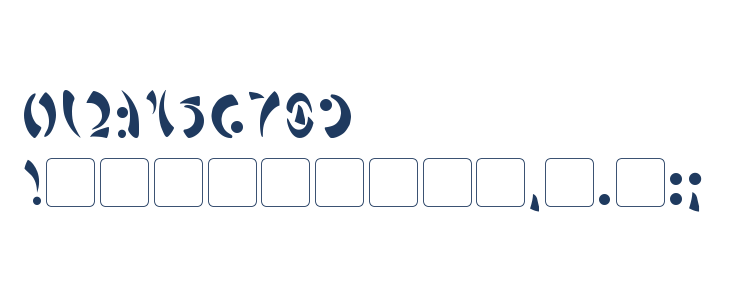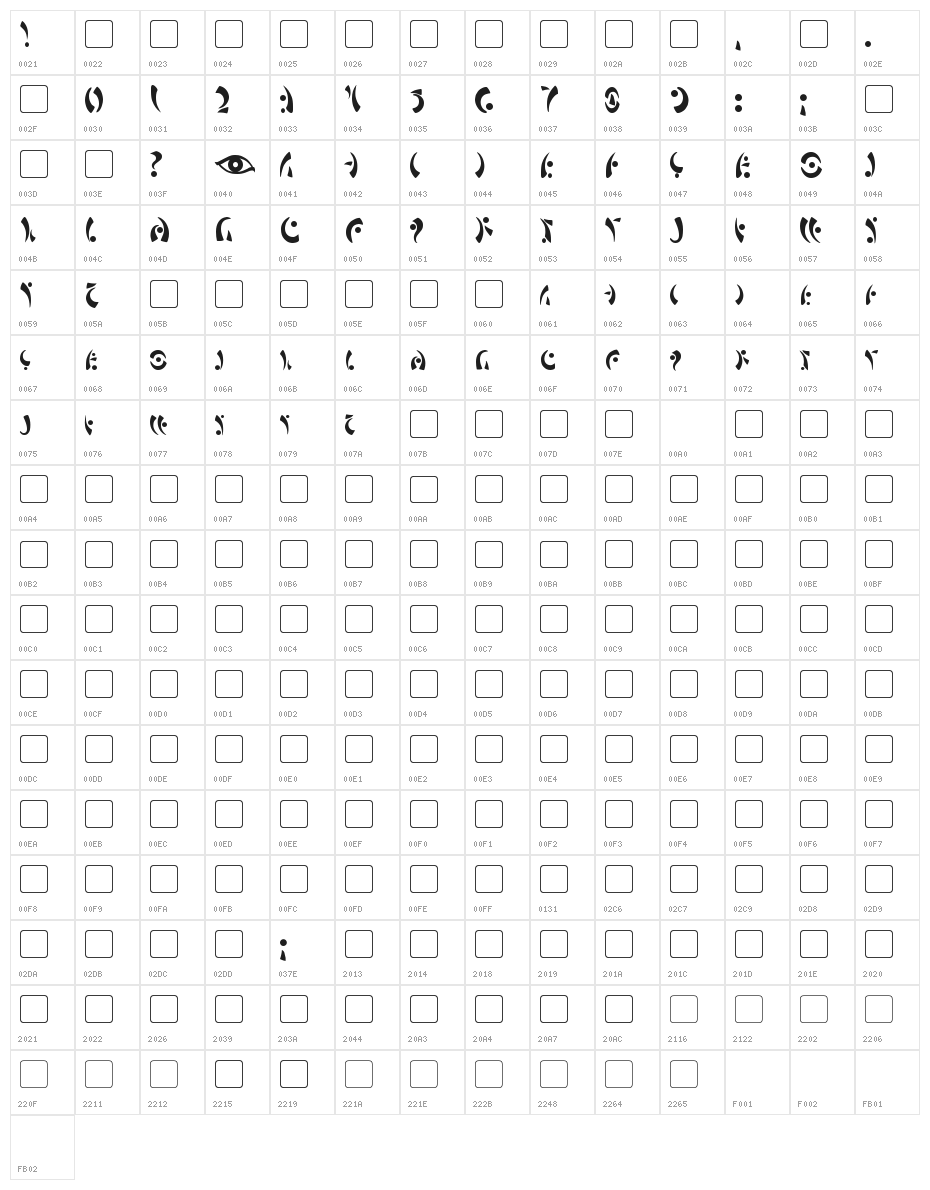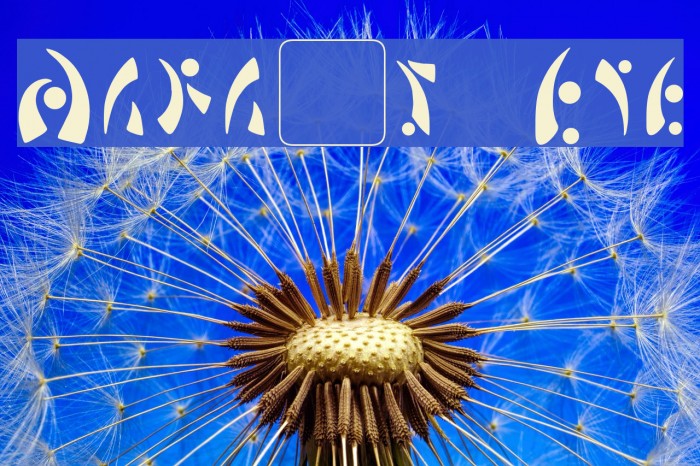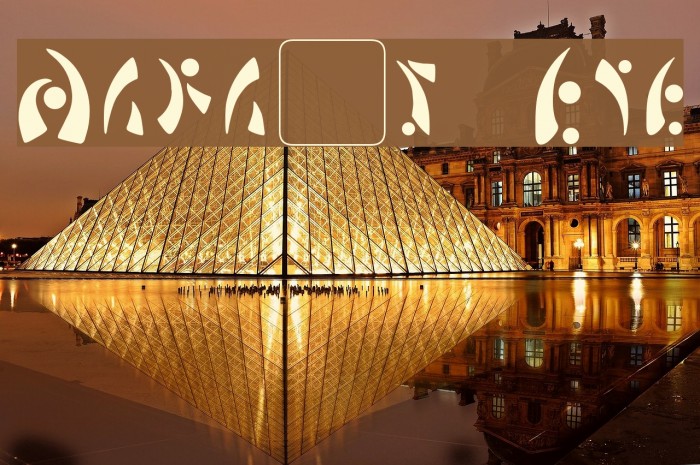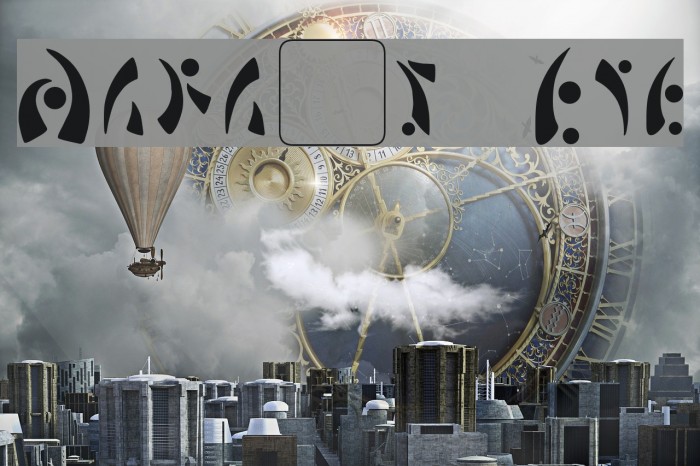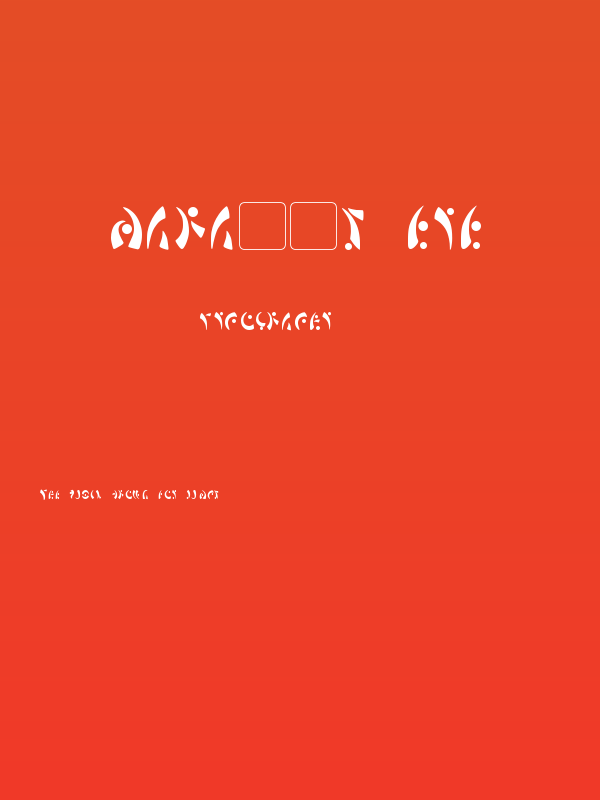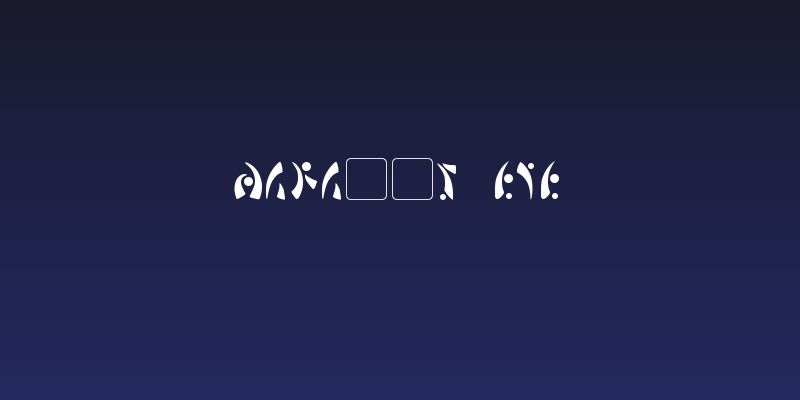
Mara's Eye Font
Mara's Eye Description
This font features a highly decorative and abstract design, characterized by bold, sweeping curves and circular motifs. Each character is crafted with a unique blend of thick and thin strokes, creating a dynamic and eye-catching appearance. The use of negative space is prominent, giving the font an almost mystical or alien-like quality. The characters are not immediately recognizable as traditional letters or numbers, making this font ideal for artistic and creative projects where readability is not the primary concern. Its distinct style can add a sense of mystery and intrigue to any design.
| Use Case | Logos, Posters, Artistic designs |
| Proposed Projects | Perfect for album covers, posters, video game graphics, or any project seeking a mysterious or futuristic aesthetic. |